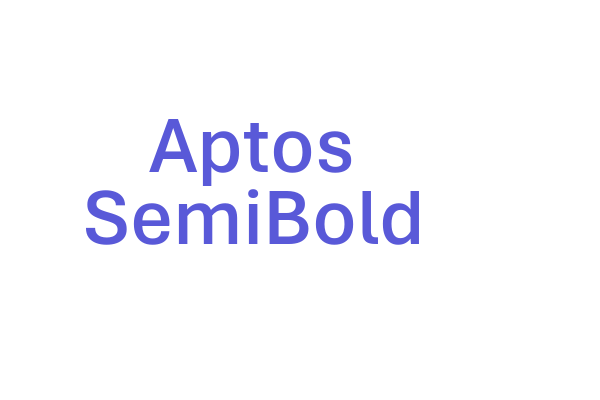
Aptos SemiBold is a member of the Aptos font family designed by Steve Matteson. This basic sans-serif font exudes a sense of strength and modernity with its SemiBold style. Ideal for headlines, titles, and branding, Aptos SemiBold is a versatile choice for projects that require a bold and contemporary look.
Font Name: Aptos SemiBold
Designer: Steve Matteson
Font Family: Aptos SemiBold